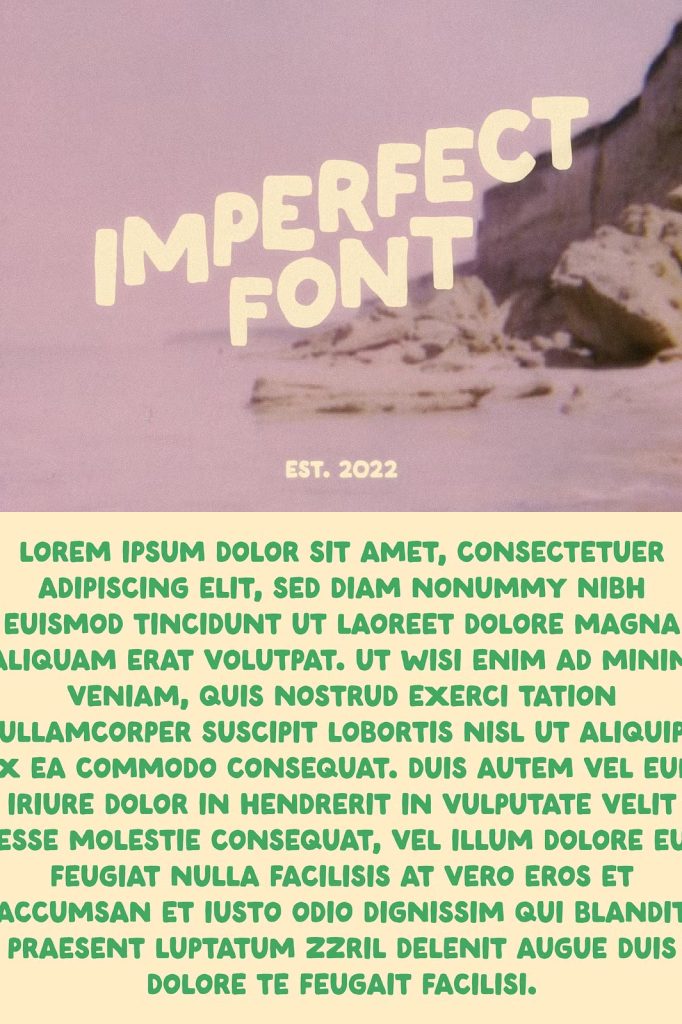
Imperfect Handwritten Font – A Naturally Crafted Sans Serif with Authentic Character
Imperfect Handwritten Font is a beautifully hand-drawn sans serif typeface that celebrates the beauty of imperfection. Designed with care and artistic intuition, each letter was drawn by hand to create a relaxed, organic look that feels genuinely human. With its uneven strokes and subtle variations, this font captures the warmth and spontaneity of handwriting—making it perfect for designers who want to add a natural, handcrafted feel to their work.
Celebrate the Beauty of Imperfection
In a world where digital design often feels too polished, Imperfect Font brings personality back to typography. Every character in this font is slightly irregular, embodying the real essence of hand lettering. The natural curves, varied line weights, and gentle asymmetry give each letter its own unique voice, helping your text stand out with authenticity and charm.
Whether used for branding, social media graphics, packaging, or editorial layouts, this handwritten sans serif adds an inviting, personal tone that connects with your audience. Its imperfections are its strength—each letterform exudes warmth, making it ideal for projects that seek to feel approachable, creative, and handcrafted.
Designed by Hand for Genuine Expression
The Imperfect Handwritten Font was meticulously drawn by hand from start to finish. Every stroke, curve, and alternate character was thoughtfully created to ensure a natural writing rhythm. This attention to detail produces a typeface that feels spontaneous yet balanced, delivering the visual charm of handwriting without sacrificing legibility.
Unlike rigid geometric fonts, Imperfect embraces a free-flowing form that mimics the movement of real pen strokes. It’s expressive but never messy—offering a perfect mix of creativity and clarity. The addition of alternates and hand-crafted details allows designers to customize their text effortlessly, creating dynamic, authentic compositions that feel alive.
Key Features of Imperfect Handwritten Font
- Authentic Handcrafted Design – Each character is hand-drawn for natural movement and charm.
- Sans Serif Simplicity – Clean yet casual, balancing modern readability with organic flow.
- Built-in Imperfections – Unique details that add warmth and personality to your typography.
- Alternates Included – Offers stylistic flexibility for more natural-looking text compositions.
- Versatile Use – Ideal for branding, quotes, logos, packaging, and lifestyle designs.
Perfect for Designers Who Value Authenticity
Imperfect is more than just a font—it’s a statement. It’s for designers who embrace originality and want their work to reflect genuine craftsmanship. Its effortless, relaxed style works beautifully across a wide range of applications, from modern branding and lifestyle blogs to organic product packaging and handmade shop logos.
This handwritten sans serif brings warmth and individuality to every project. The letters feel spontaneous yet cohesive, helping brands express friendliness and authenticity. It’s particularly effective in social media graphics, greeting cards, wedding invitations, editorial titles, and minimalist layouts where a personal touch makes all the difference.
Why Choose Imperfect Handwritten Font
Designers love Imperfect Handwritten Font for its expressive, versatile nature. It offers the charm of handwriting without losing professional polish. The carefully drawn imperfections make it feel approachable, while its sans serif structure ensures modern usability. This balance makes it a great choice for creatives seeking a human, relaxed aesthetic that still feels refined.
Its friendly appearance and hand-rendered texture make Imperfect for storytelling design. Each letter carries a personality that enhances your brand’s emotional tone—inviting viewers to connect on a more personal level. When paired with clean design elements or muted color palettes, Imperfect stands out as a centerpiece that communicates sincerity and artistic freedom.
Conclusion: Add a Personal Touch with Imperfect Handwritten Font
Imperfect Handwritten Font is the ideal choice for anyone who wants to bring natural character into their typography. Its hand-drawn charm, balanced with sans serif simplicity, creates a relaxed and engaging design language that works across both print and digital platforms. From branding and product packaging to editorial titles and invitations, Imperfect delivers authenticity and creativity in every stroke. Celebrate the art of imperfection and let your designs tell a more human story with this unique handwritten typeface.